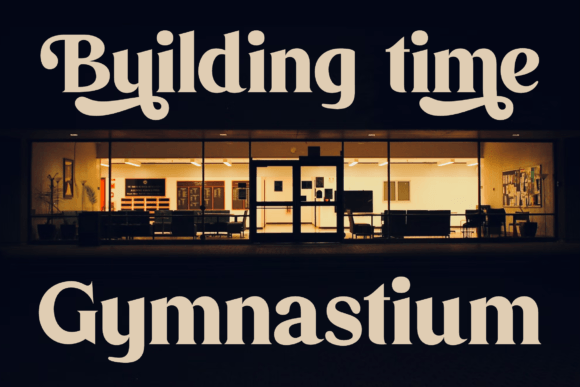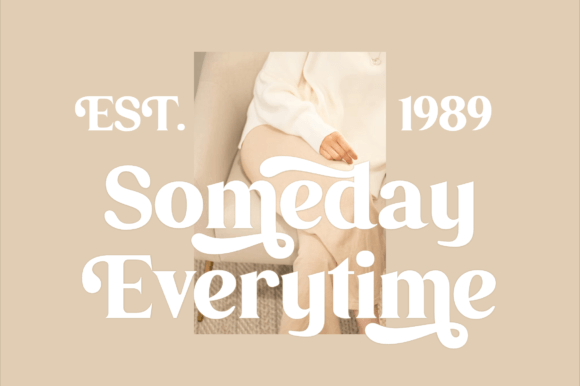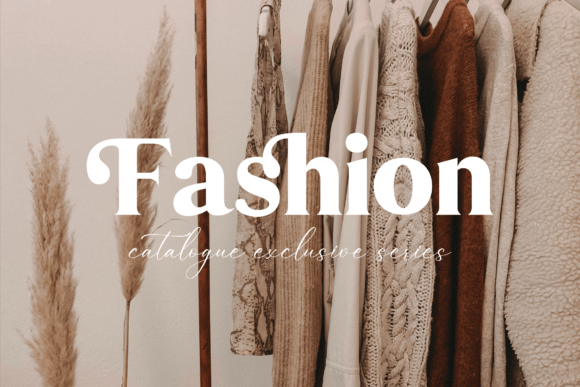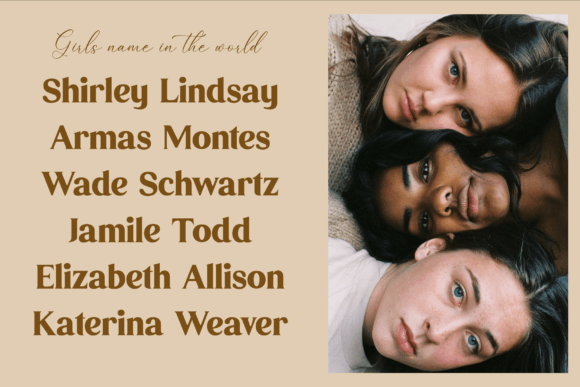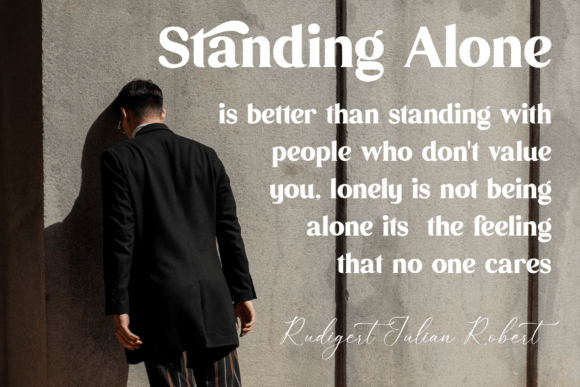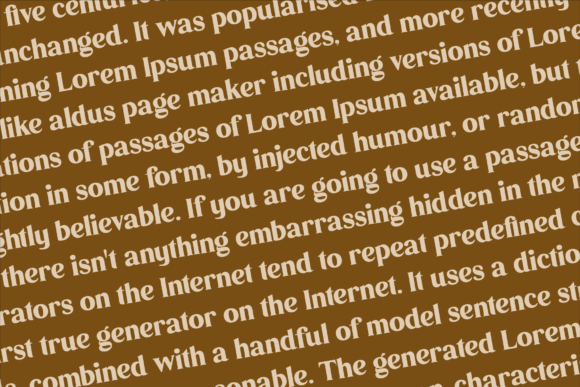
Dishcek Font: Elevate Your Designs with Elegance and Luxury
In the world of typography, a font can make or break a design. For designers and crafters seeking to add a touch of sophistication and luxury to their work, the Dishcek font is an exceptional choice. This modern and classic serif font boasts a unique style that exudes elegance, making it perfect for a wide range of applications, from logos and titles to fashion branding and editorial design.
The Essence of Dishcek Font
Dishcek is not just another serif font; it’s a statement piece. Its unique blend of modernity and classicism gives it a distinctive look that can elevate any design. The font’s luxurious appearance makes it an ideal choice for projects that require a high-end feel, such as luxury logos, book or movie titles, fashion brands, magazines, and clothing designs.
One of the key advantages of the Dishcek font is its versatility. It can be used for a myriad of design projects, including:
- Elegant Logos: Create a lasting impression with a logo that embodies luxury and sophistication.
- Book or Movie Titles: Add a touch of class to your titles, making them stand out in a crowded market.
- Fashion Brands: Perfect for fashion brands looking to convey a sense of luxury and style.
- Magazines: Elevate your editorial design with a font that commands attention and respect.
- Clothing Designs: Use Dishcek to add a luxurious touch to your clothing designs, making them more appealing to customers.
- Lettering and Quotes: Create beautiful lettering pieces and quotes that inspire and captivate your audience.
The Dishcek font is PUA (Private Use Area) encoded, which means that accessing all the glyphs and swashes is incredibly easy. This feature allows designers to have more creative freedom, enabling them to experiment with different styles and variations without the hassle of complicated font management.
Why Choose Dishcek Font?
There are several reasons why designers and crafters should consider Dishcek for their projects:
- Unique Style: Dishcek offers a unique style that sets it apart from other serif fonts.
- Luxurious Look: Its luxurious appearance makes it perfect for high-end projects.
- Versatility: It can be used for a wide range of design applications.
- Easy to Use: PUA encoding makes it easy to access all glyphs and swashes.
Tips for Using Dishcek Font Effectively
To get the most out of the Dishcek font, consider the following tips:
- Pair it with Simplicity: Let the font be the focal point by pairing it with simple backgrounds or design elements.
- Experiment with Sizes: Play with different font sizes to create visual hierarchy and emphasis.
- Utilize Swashes: Take advantage of the swashes to add a decorative touch to your designs.
- Consider Line Spacing: Ensure that your text is easy to read by adjusting line spacing appropriately.
The Dishcek font is a powerful tool for designers and crafters looking to add a touch of elegance and luxury to their work. Its unique style, versatility, and ease of use make it an excellent choice for a wide range of design projects. Whether you’re creating a luxury logo, designing a fashion brand, or working on an editorial project, Dishcek is sure to elevate your designs to the next level.
With its luxurious look and PUA encoding for easy access to glyphs and swashes, Dishcek is not just a font but a design experience. Explore the possibilities of what you can create with Dishcek and discover how it can transform your designs into something truly special.